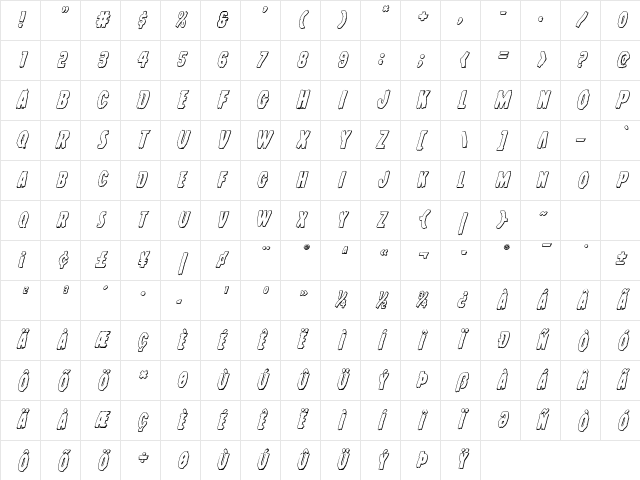
Young Frankenstein 3D Italic Italic Free Font
Young Frankenstein 3D Italic Italic
Design Context for Young Frankenstein 3D Italic
Young Frankenstein 3D Italic is a composed and adaptable typeface that performs quietly and consistently across a wide range of design contexts. The slanted form adds forward momentum and visual energy.
Pro Tip: Use Young Frankenstein 3D Italic for emphasis, pull quotes, and subheadings where its slanted energy can add rhythm to the layout.